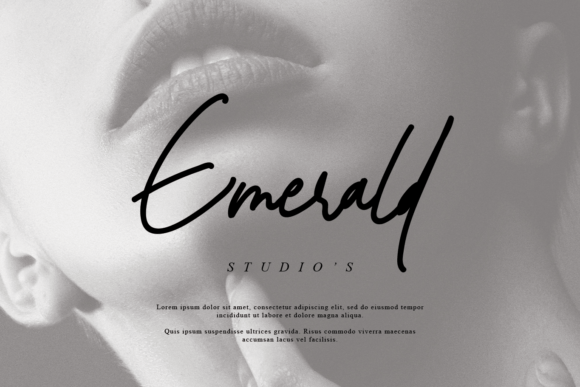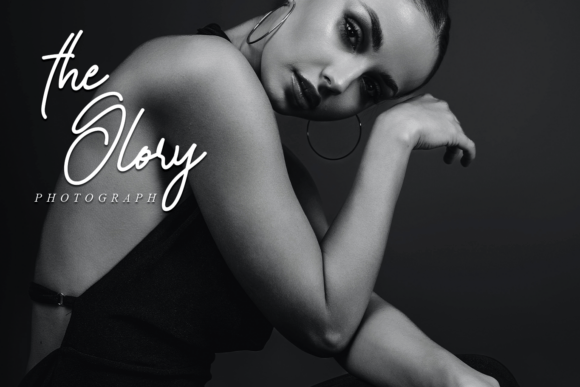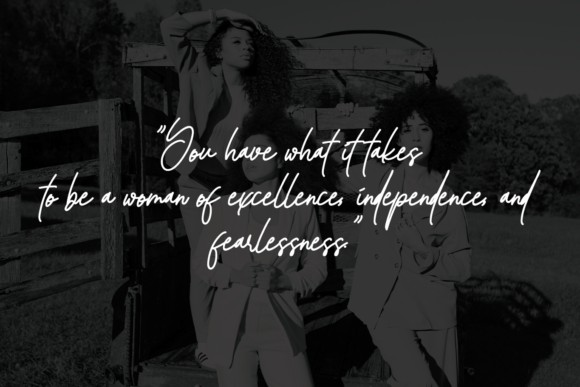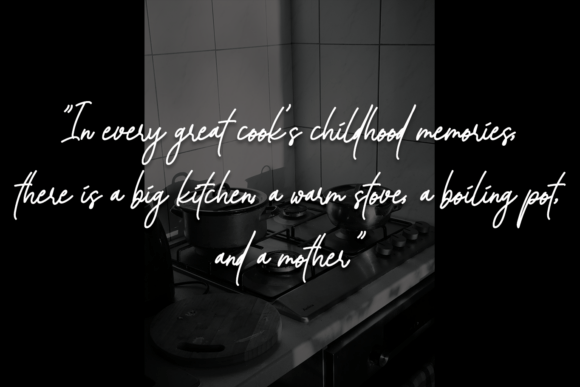
Introduction to Moment Font
Moment is a thin lettered handwritten font, masterfully designed to become a true favorite.
It maintains its classy calligraphic influences while feeling contemporary and fresh .